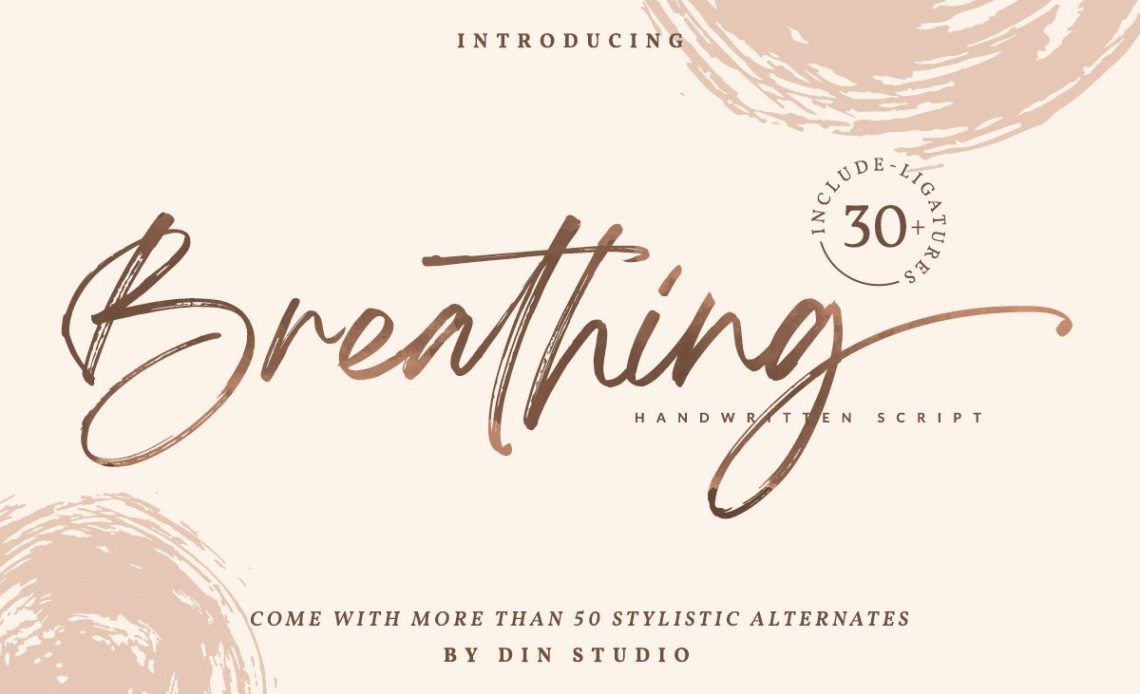
Introducing Breathing - Beautiful Brush Font, the perfect choice for designers seeking a unique and captivating font for their projects. This stunning signature font has been crafted with care by the talented designer Donis Miftahudin. With its beautiful touch, every letter is sure to grab your audience's attention and elevate your branding to the next level.
Breathing offers an array of features, including 52 stylistic sets and 37 ligatures. Its multilingual support and PUA encoding make it versatile and perfect for various designs, such as posters, banners, logos, book covers, printed products, merchandise, and social media.
This font is not only visually appealing but also practical. Its numerals and punctuations are designed to complement the letters perfectly, ensuring a cohesive and polished look for your design projects.
Whether you're a professional designer or an amateur, Breathing - Beautiful Brush Font is perfect for your branding needs. It's a must-have for those who want to stand out and make an impact.